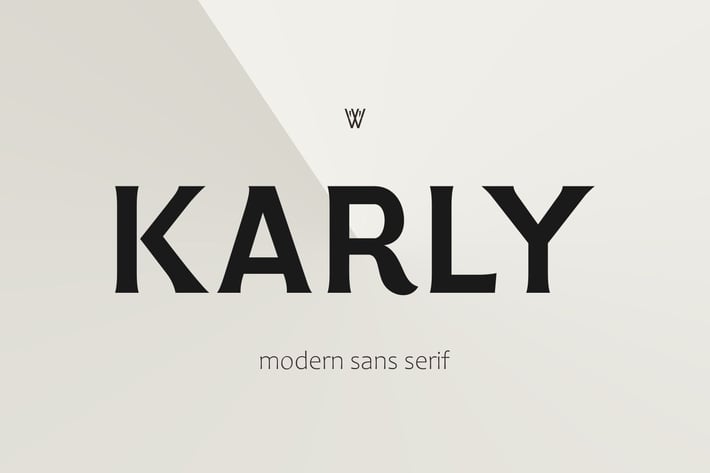
KARLY | Bold Luxury Serif Font for Branding
Introducing KARLY, a bold and luxurious serif font crafted to elevate your designs with simplicity and elegance. This versatile typeface is perfect for invitations, branding, headlines, and presentation templates, giving each project a stylish and professional look. Designed for seamless use across major platforms like Cricut, Procreate, Canva, and Adobe, KARLY makes it easy to create high-impact visuals.
Ideal for weddings, events, business presentations, and social media graphics, KARLYβs modern design adds sophistication to every project. Its clean lines and substantial weight make it a standout choice for titles, headers, and brand logos.
Key Features:
π Bold & Elegant Design β A modern serif with clean lines, ideal for high-end, professional designs.
π Versatile Use β Perfect for invitations, crafting, presentations, social media graphics, and more.
π Complete Character Set β Includes uppercase and lowercase letters, punctuation, and symbols.
Ideal For:
π Wedding Invitations & Event Materials β Create upscale, elegant stationery.
π Branding & Logos β Add a bold, luxurious look to brand identities and marketing materials.
π Social Media & Presentations β Great for impactful titles, headers, and social media content.
Add KARLY to your design toolkit and create with elegance and simplicity. Its bold style is perfect for designers, crafters, and anyone looking to make a statement with refined typography.